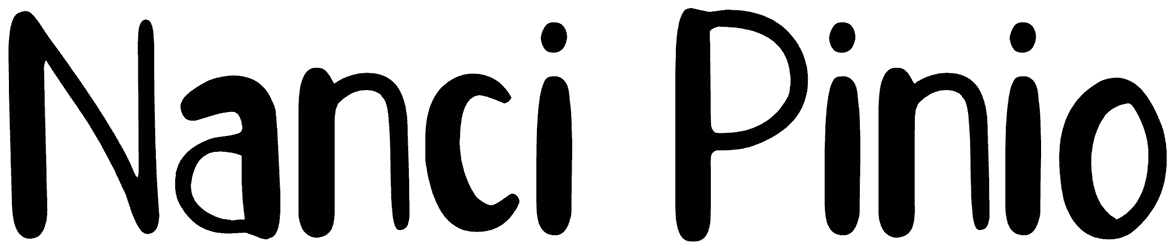
Nanci Pinio Font
If you are looking for a handwritten, informal look for your typography, then we suggest you try doodle fonts. Nanci Pinio is a cute font, and with its adorable design, it would be perfect for cartoons, children’s storybooks, clothing, and branding.